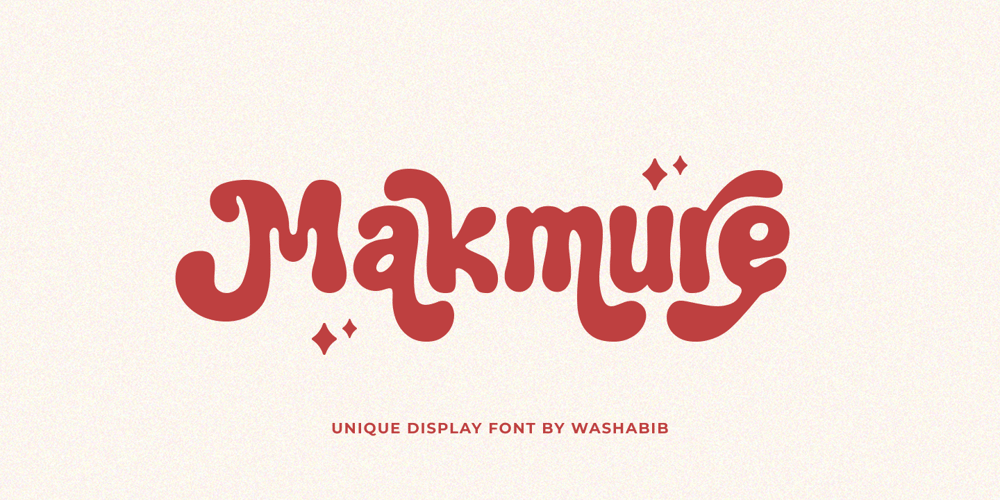
Makmure Font Family was designed by Miftahul Habib and published by Wasabib Type Foundry. Makmure contains 1 styles and family package options. Introducing by Wasabib Type FoundryMakmure is a Unique Display FontHand drawn font with fun chubby characters. Equipped with various alternative characters to strengthen your visual design. Suitable for branding designs, logos, social media posts, posters etc.Features: Uppercase, Lowercase, Numeral, Punctuation, Multilingual, Alternates & Ligatures.